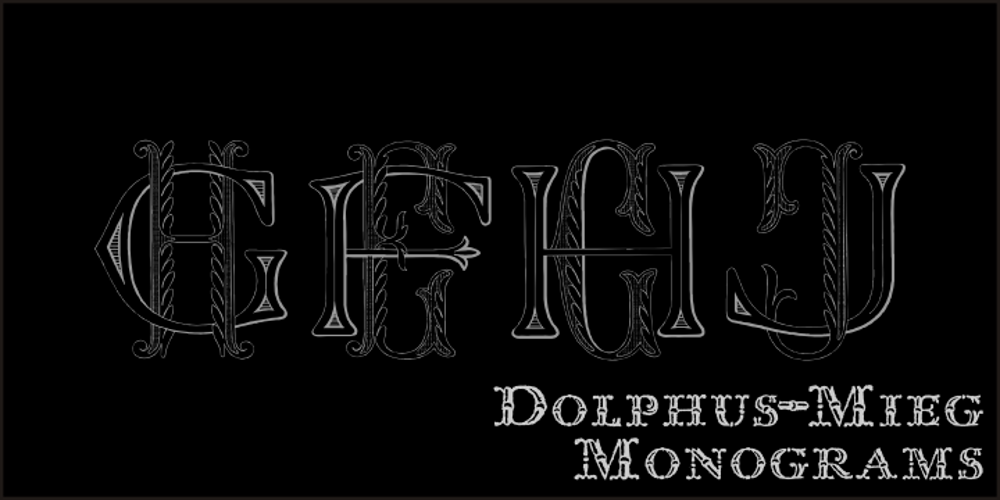
Dolphus-Mieg Monograms
Dolphus-Mieg Monograms font
Dolphus-Mieg Monograms Font Family was designed by Iza W and published by Intellecta Design. Dolphus-Mieg Monograms contains 1 styles and family package options. Dolphus-Mieg Monograms is a collection of monograms from a rare cross-stitch booklet from the first year of the 20th Century. This new Monograms series was entirely designed by hand, without use of auto-tracing.